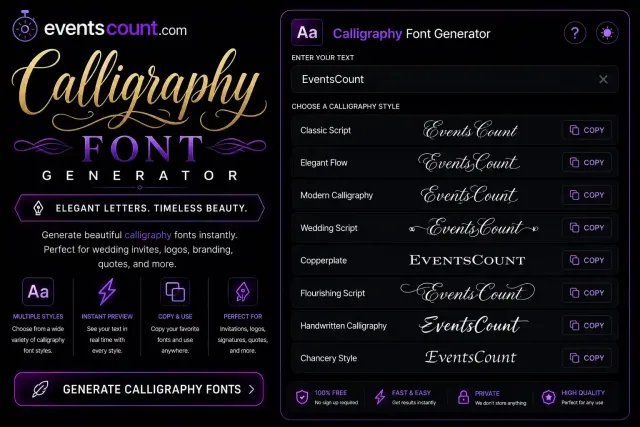
Calligraphy Font Generator
Create elegant calligraphy text styles for names, invitations, captions, bios, and messages.
Calligraphy Font Generator
Create elegant, artistic, and professional-looking text with our Calligraphy Font Generator. Inspired by traditional penmanship and modern hand lettering, calligraphy fonts transform ordinary words into beautiful script styles that feel refined, personal, and timeless.
Whether you're designing a signature, creating social media content, writing invitations, building a personal brand, or simply exploring creative typography, calligraphy fonts help your text stand out with sophistication and style.
What Is Calligraphy?
Calligraphy is the art of decorative writing. For centuries, calligraphy has been used in royal documents, wedding invitations, certificates, manuscripts, and artistic projects. Today, digital calligraphy remains one of the most popular typography styles because it combines elegance with readability.
Modern calligraphy fonts capture the beauty of traditional handwriting while making it easy to create stunning text online.
Calligraphy Text Generator
Our Calligraphy Text Generator instantly converts ordinary text into decorative script lettering. Simply type your word, name, quote, or message and generate beautiful calligraphy styles ready for copy and paste.
The generated text can be used for profiles, branding, captions, creative projects, and personal communication.
Calligraphy Text Maker
The Calligraphy Text Maker helps transform plain text into elegant handwriting-inspired designs. Whether you're creating aesthetic social media content or professional-looking text, calligraphy instantly adds visual appeal.
Unlike ordinary fonts, calligraphy lettering feels more personal and expressive.
Calligraphy Signature Generator
Looking for a stylish digital signature? Our Calligraphy Signature Generator helps create elegant signature-style text for names, personal branding, portfolios, websites, and creative projects.
Many professionals, creators, freelancers, and entrepreneurs use calligraphy-style signatures to create a more memorable visual identity.
Calligraphy Letters Generator
The Calligraphy Letters Generator converts individual letters into decorative script characters inspired by traditional calligraphy. This makes it easy to create monograms, initials, custom names, and artistic typography.
Every letter is transformed into a flowing, elegant style while remaining easy to read.
Hand Lettering Generator
Our Hand Lettering Generator creates text that resembles handcrafted lettering often seen in artwork, invitations, logos, and creative branding. Hand lettering focuses on visual beauty and personality rather than standard typography.
It is a popular choice for creators who want a more authentic and artistic appearance.
Stylish Calligraphy Font Generator
The Stylish Calligraphy Font Generator offers a collection of elegant script styles ranging from modern calligraphy to decorative cursive writing. Whether you're creating aesthetic content or professional branding, stylish calligraphy fonts can elevate your design instantly.
These styles work especially well for quotes, names, captions, and invitations.
Online Calligraphy Generator
With our Online Calligraphy Generator, you can create beautiful calligraphy text directly from your browser. No design software, font installation, or special tools are required.
Simply type your text, generate your favorite style, and copy it instantly.
Free Calligraphy Fonts Copy and Paste
Our Free Calligraphy Fonts Copy and Paste tool allows unlimited text generation completely free. Generate elegant script fonts, copy them with one click, and paste them into social media profiles, messages, websites, or creative projects.
Everything works online and is available on desktop and mobile devices.
Calligraphy Fonts Copy Paste
Using Calligraphy Fonts Copy Paste is one of the easiest ways to personalize your content. Instead of using ordinary text, you can instantly create elegant script lettering that looks more artistic and refined.
This makes calligraphy fonts ideal for creators, influencers, designers, and anyone who wants visually attractive text.
Calligraphy Font Examples
Here are some examples of calligraphy-style text:
- 𝒞𝒶𝓁𝓁𝒾𝑔𝓇𝒶𝓅𝒽𝓎
- 𝓔𝓵𝓮𝓰𝓪𝓷𝓽 𝓢𝓬𝓻𝓲𝓹𝓽
- 𝒮𝓉𝓎𝓁𝒾𝓈𝒽 𝒩𝒶𝓂𝑒
- 𝓜𝔂 𝓢𝓲𝓰𝓷𝓪𝓽𝓾𝓻𝓮
- 𝒞𝓇𝑒𝒶𝓉𝒾𝓋𝑒 𝒯𝑒𝓍𝓉
- 𝓦𝓮𝓭𝓭𝓲𝓷𝓰 𝓘𝓷𝓿𝓲𝓽𝓪𝓽𝓲𝓸𝓷
- 𝒫𝑒𝓇𝓈𝑜𝓃𝒶𝓁 𝐵𝓇𝒶𝓃𝒹
- 𝓕𝓪𝓷𝓬𝔂 𝓛𝓮𝓽𝓽𝓮𝓻𝓲𝓷𝓰
Best Uses for Calligraphy Fonts
- Digital signatures
- Wedding invitations
- Instagram bios
- TikTok profiles
- Personal branding
- Logo concepts
- Quotes and captions
- Creative artwork
- Greeting cards
- Business names
- YouTube channel names
- Portfolio websites
Why Are Calligraphy Fonts So Popular?
Calligraphy fonts create a feeling of elegance, craftsmanship, and professionalism. Unlike ordinary text, they appear carefully designed and visually refined, making them ideal for both personal and professional use.
What is a Hand Lettering Generator?
A Hand Lettering Generator creates text that resembles custom hand-drawn lettering commonly used in creative design and branding.
Do calligraphy fonts work on Instagram and TikTok?
Yes. Most calligraphy Unicode styles work on Instagram, TikTok, Discord, Facebook, X, and many other platforms.